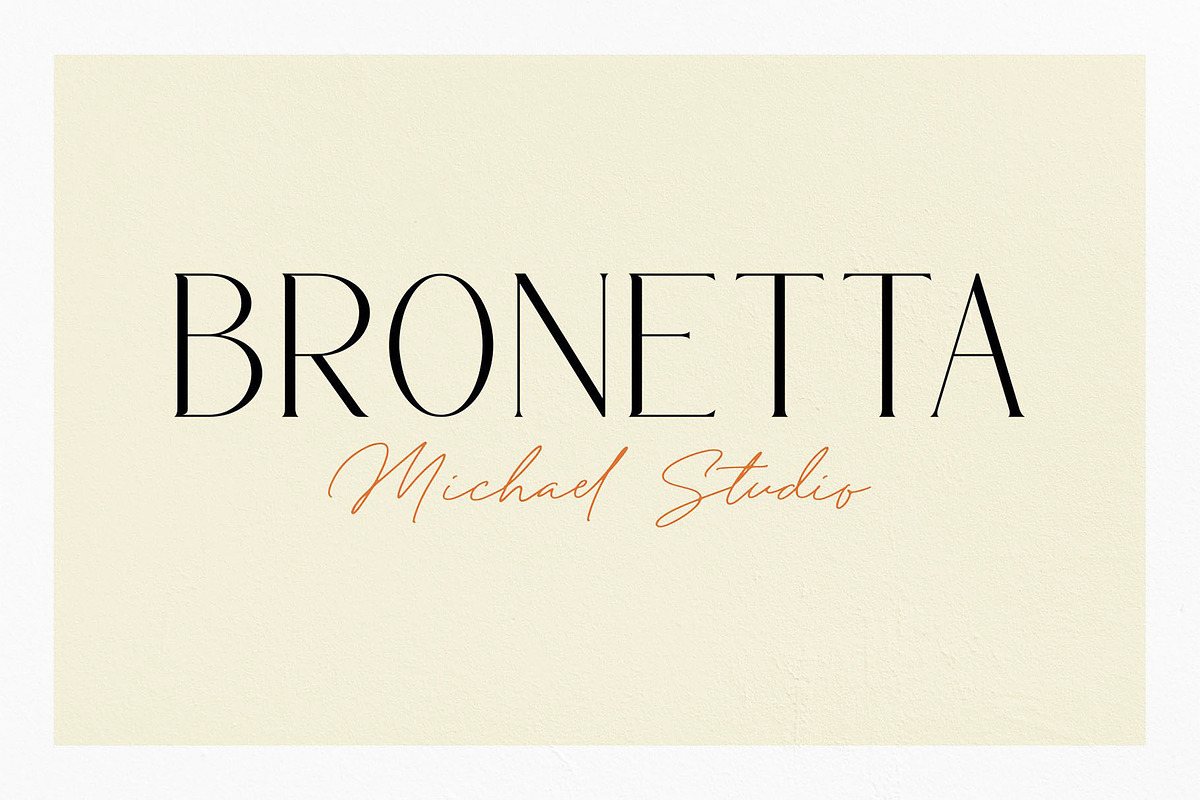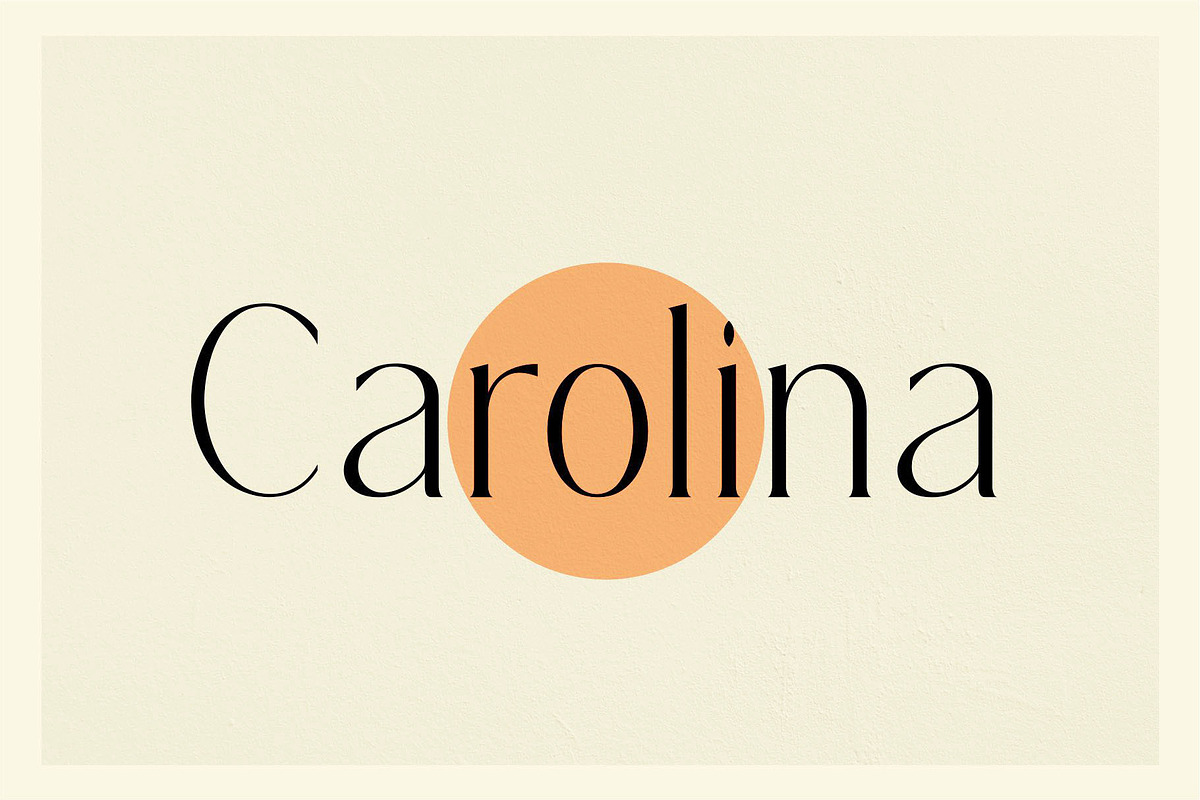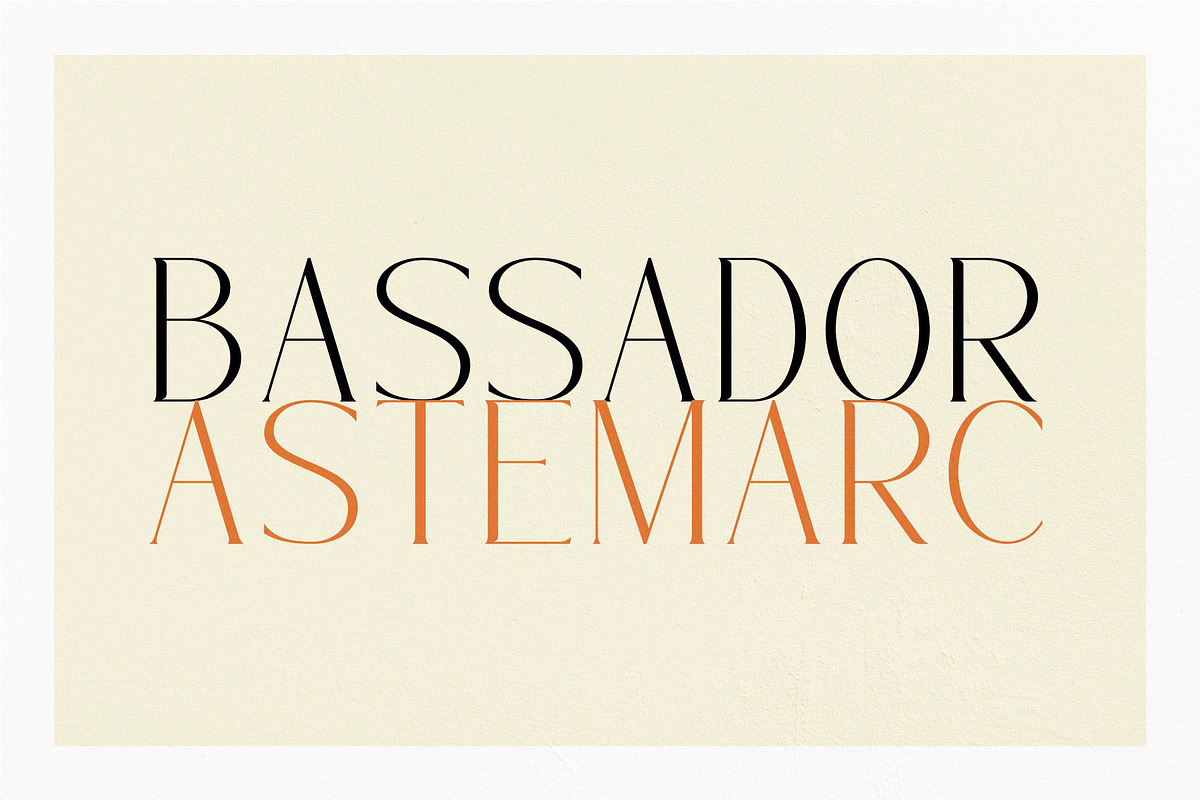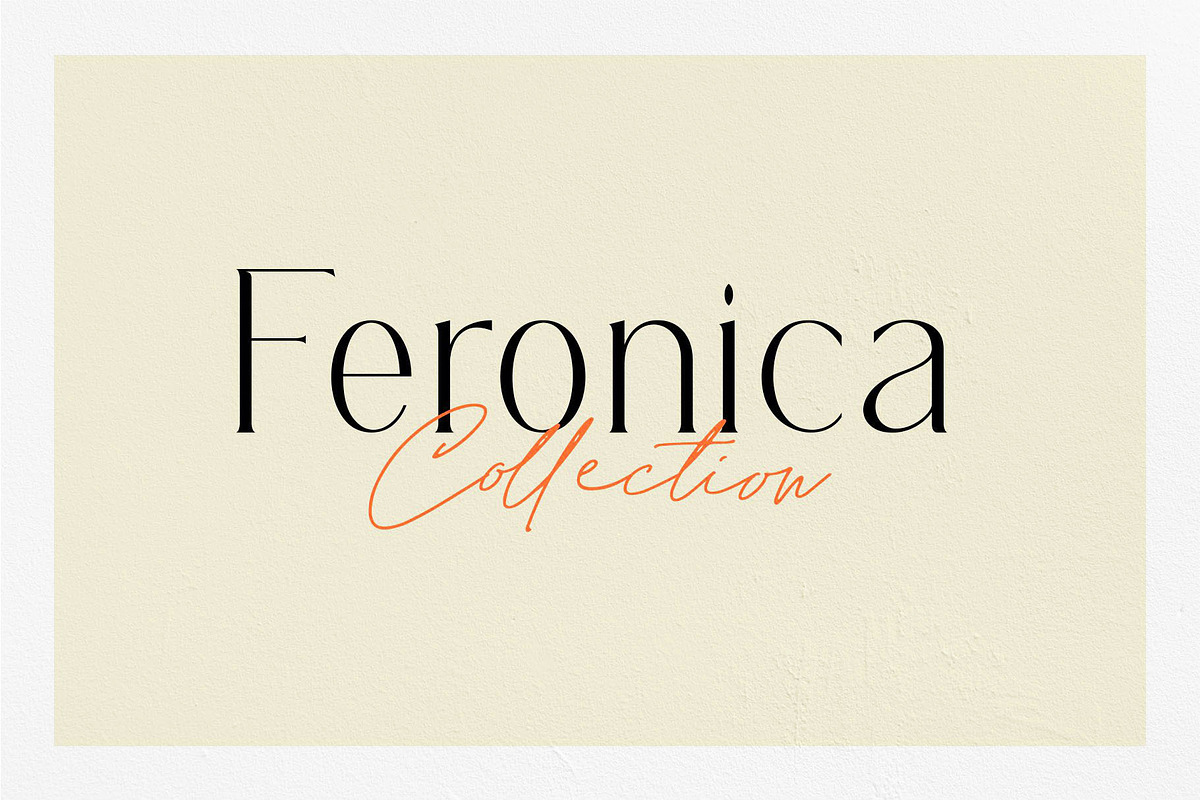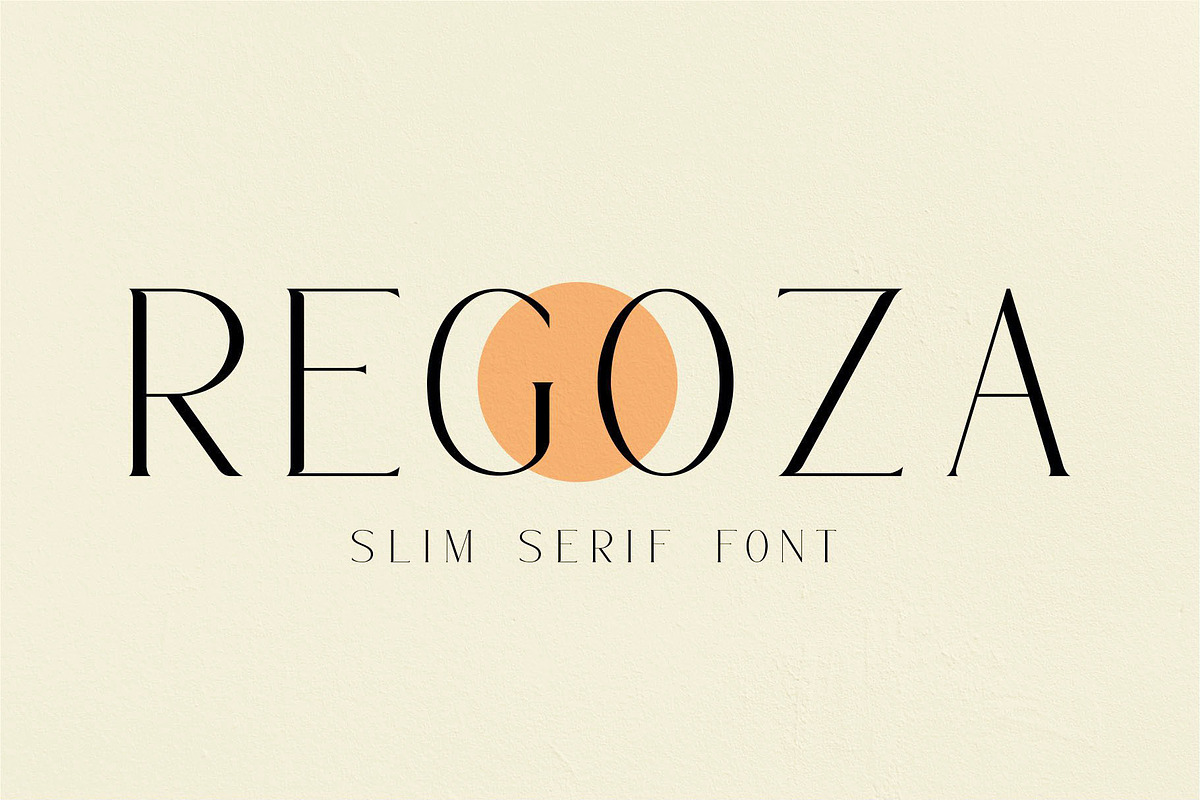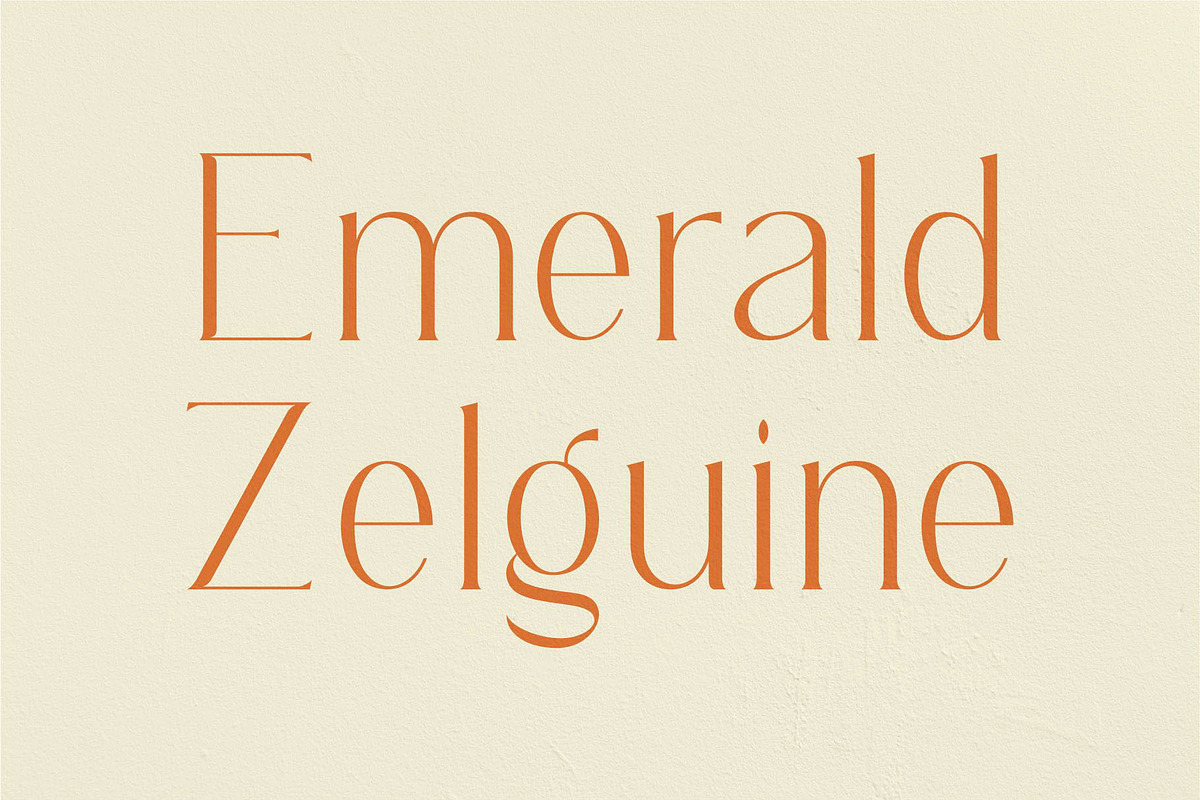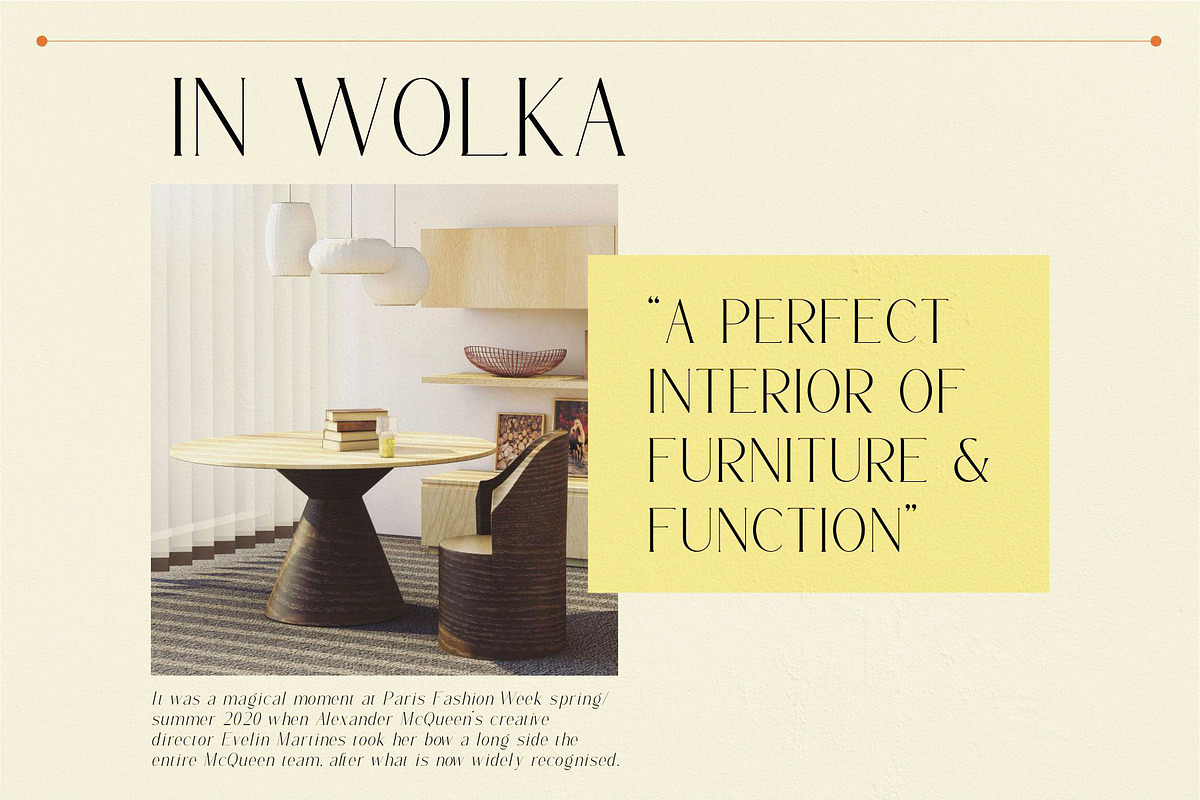
REGOZA//Typeface Slim Serif
REGOZA//Typeface Slim Serif. chic font takes the decoration out of deco but keeps those vintage curves. A perfect mix of new and old. This versatile font can be used for word-mark logos, mastheads, pull quotes & monograms.
REGOZA//Typeface Slim Serif by Kleffont Studio fits naturally into Branding, posters, packaging, typography.